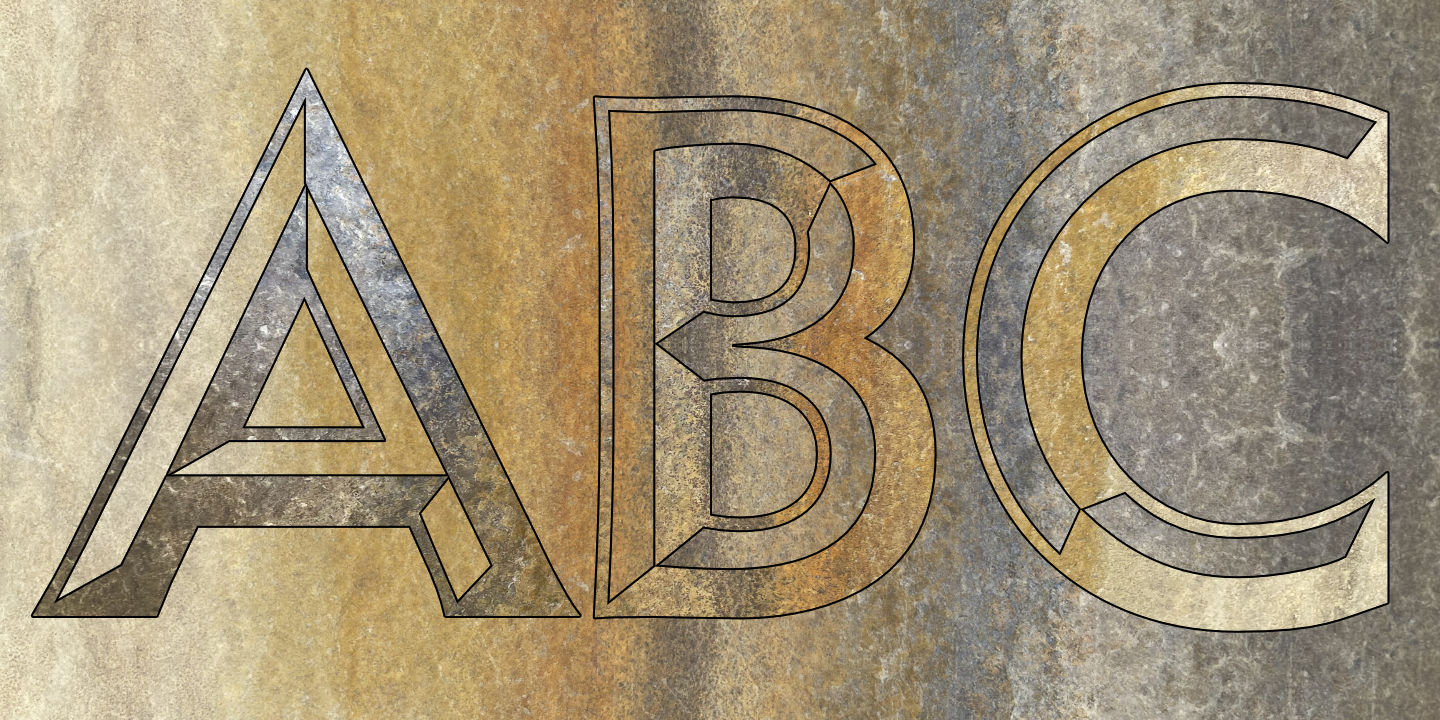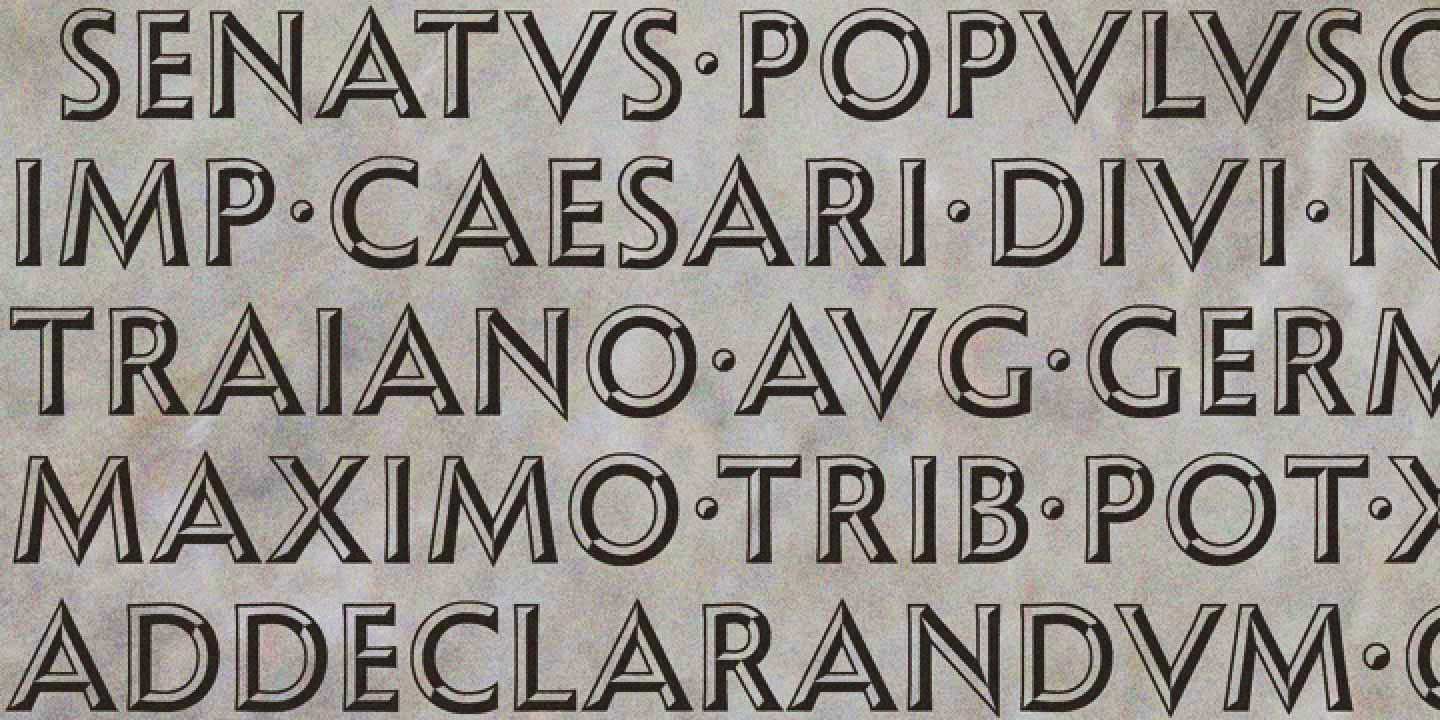
Shàngó Chiseled
Based on the elegant and somewhat delicate Shàngó "Classic", Shàngó™ Chiseled goes to the other extreme with a bold and emphatic design that maintains the beautiful classic proportions of F.H. Ernst Schneidler's original titling typeface (1936), but adds a third dimension that suggests the ancient stone cut letters that were the source of Schneidler's elegant design. Shàngó™ Chiseled is listed in the 2008 Honorable Mentions in the display category, as reviewed by Typographica.